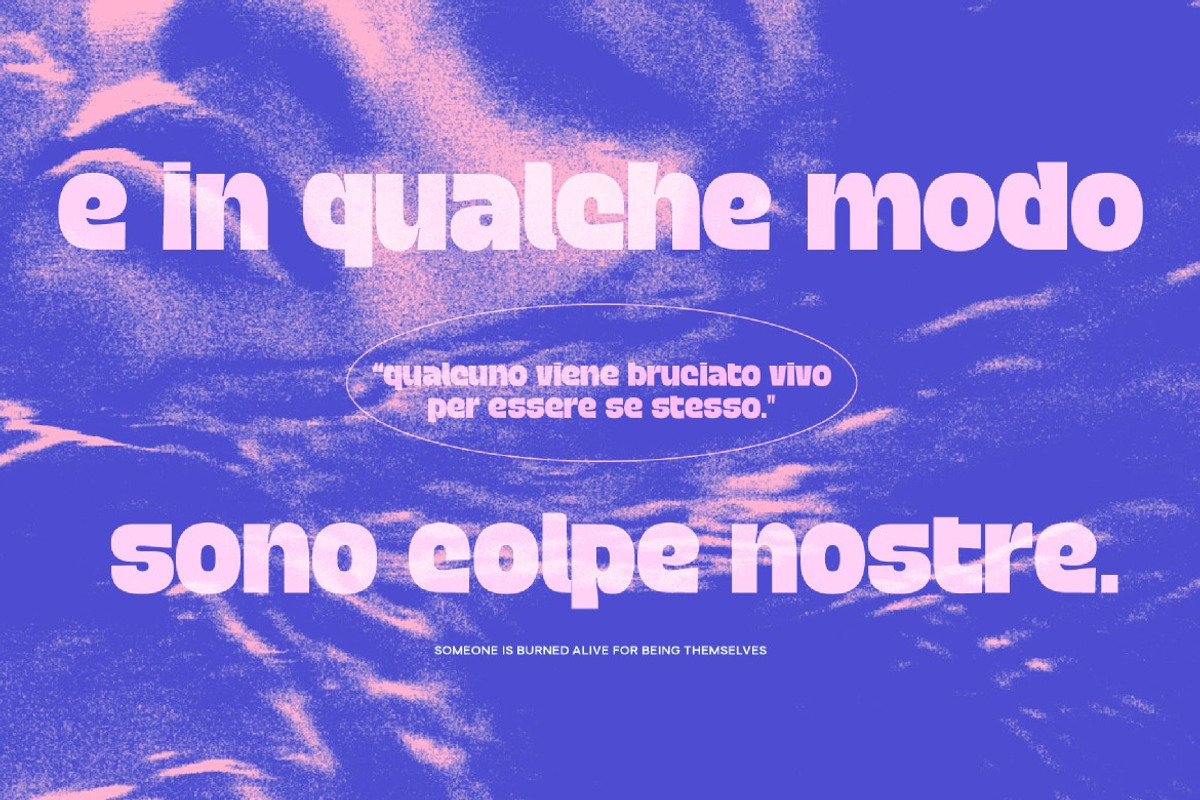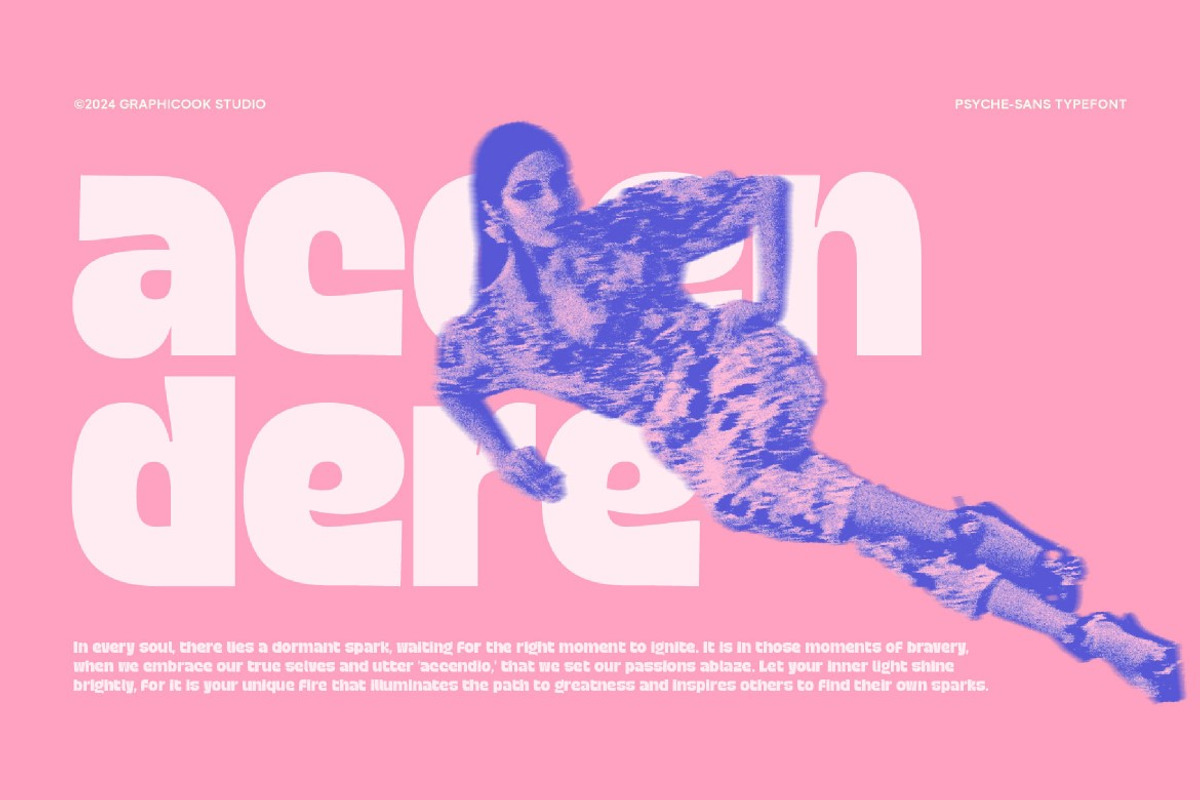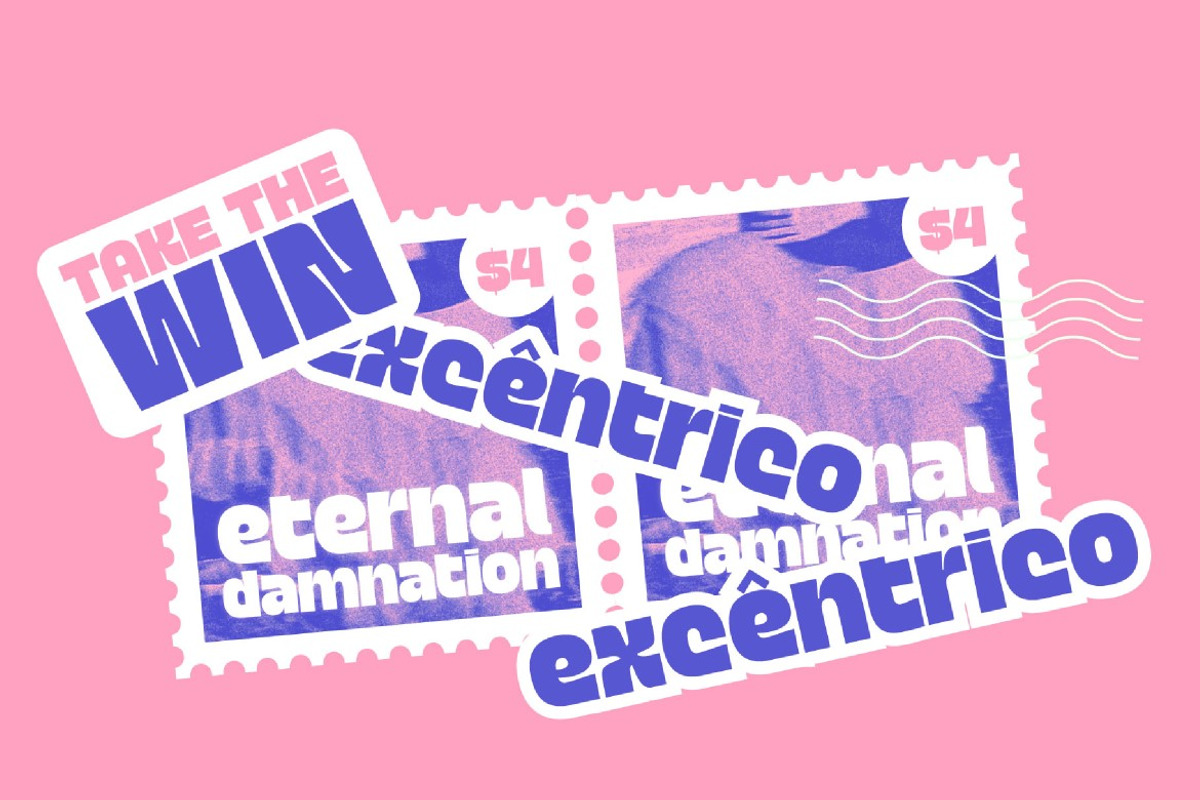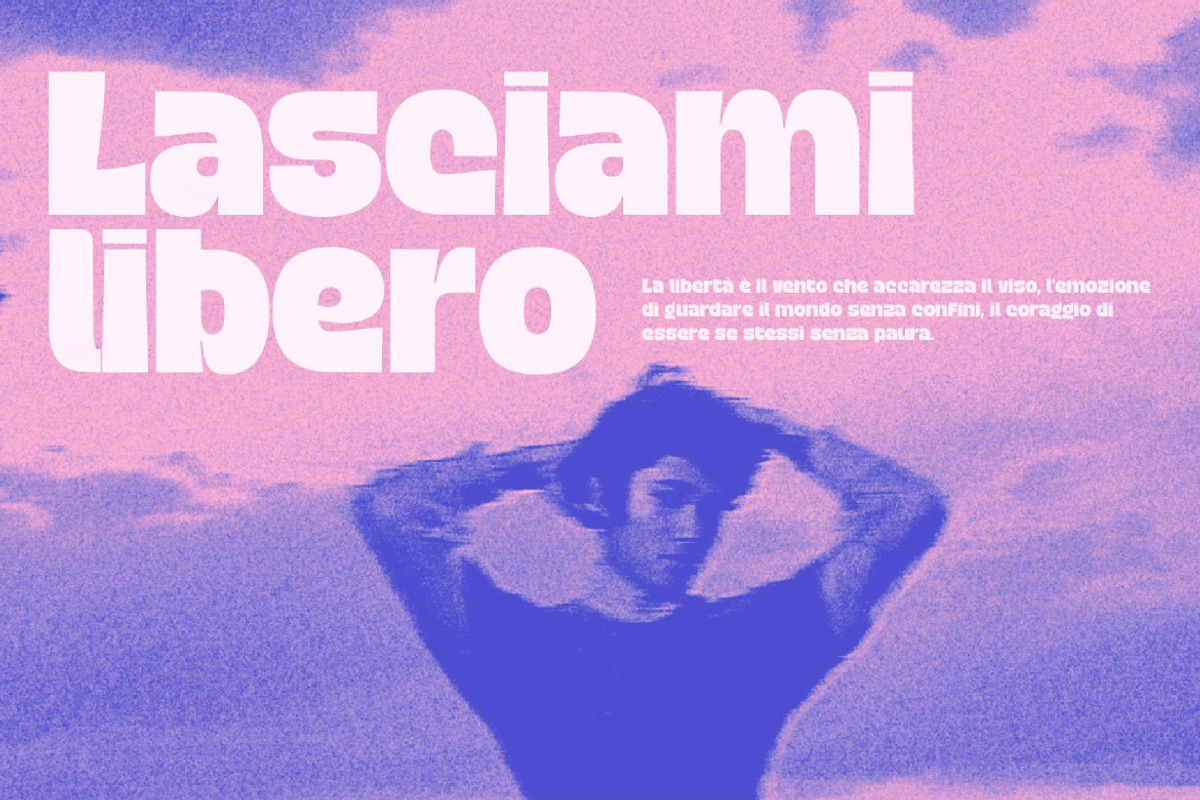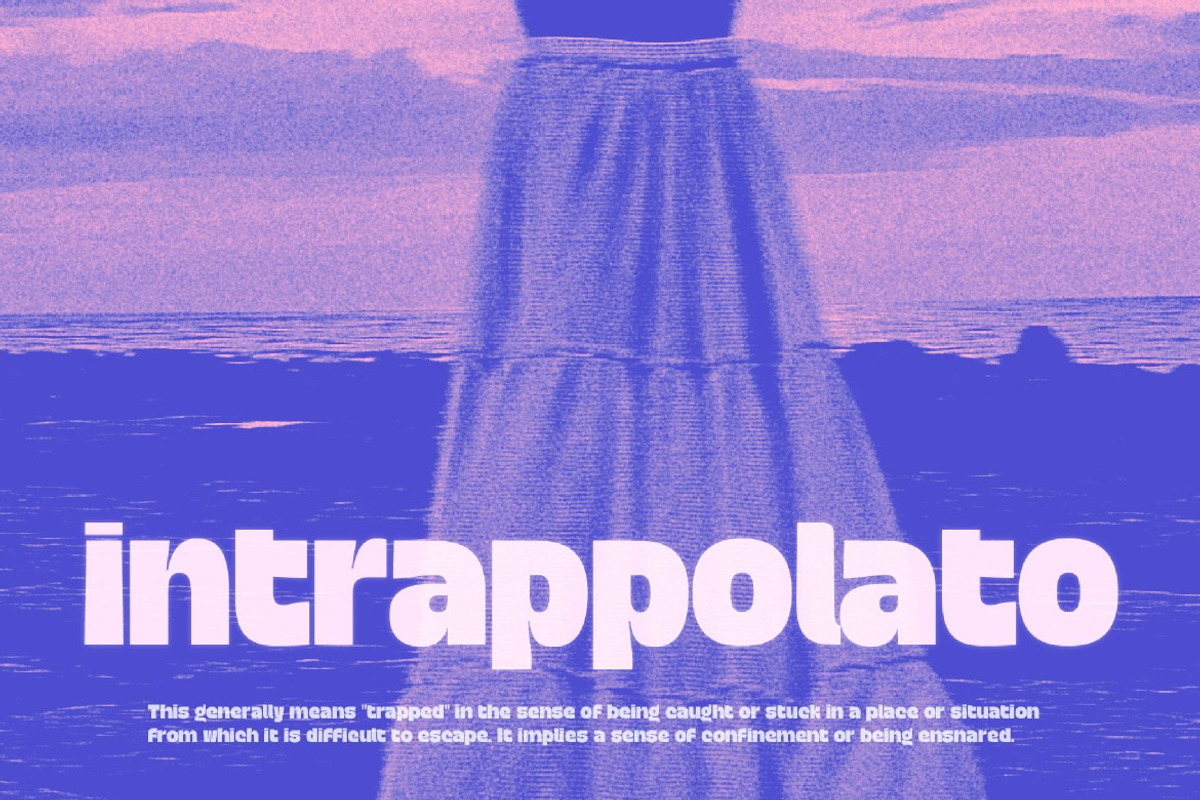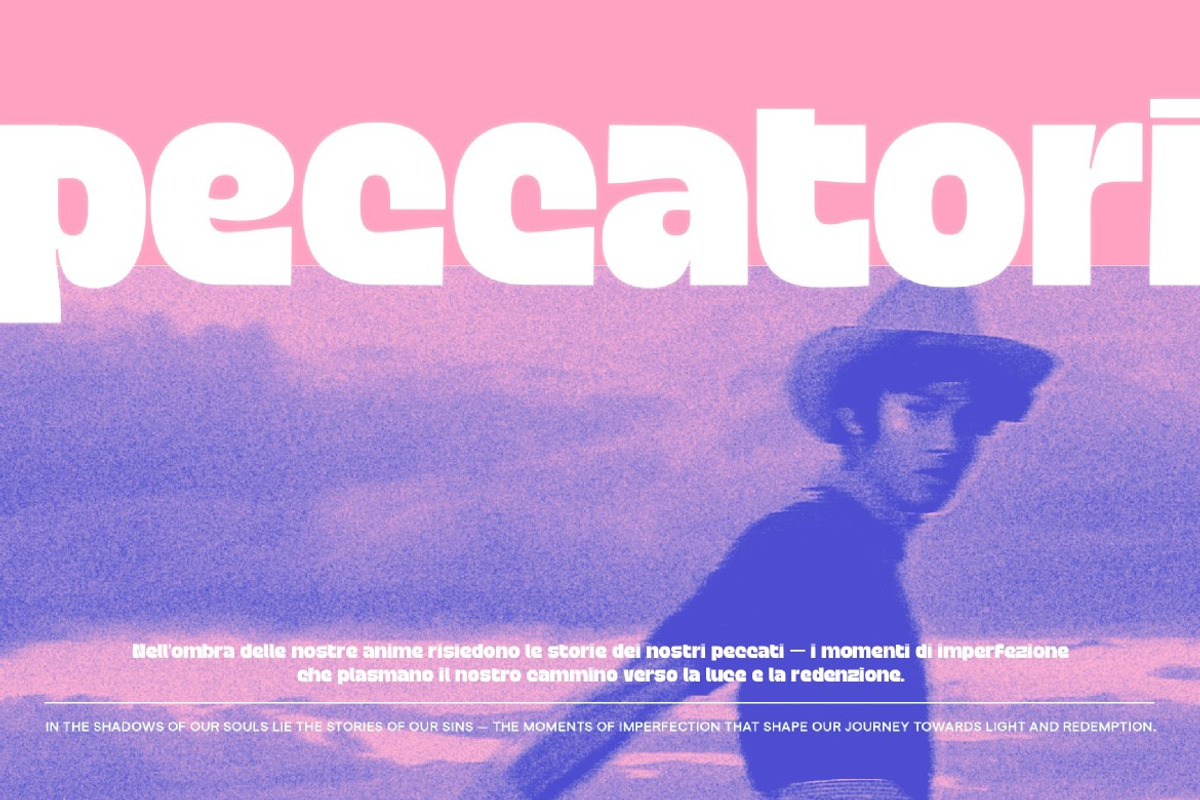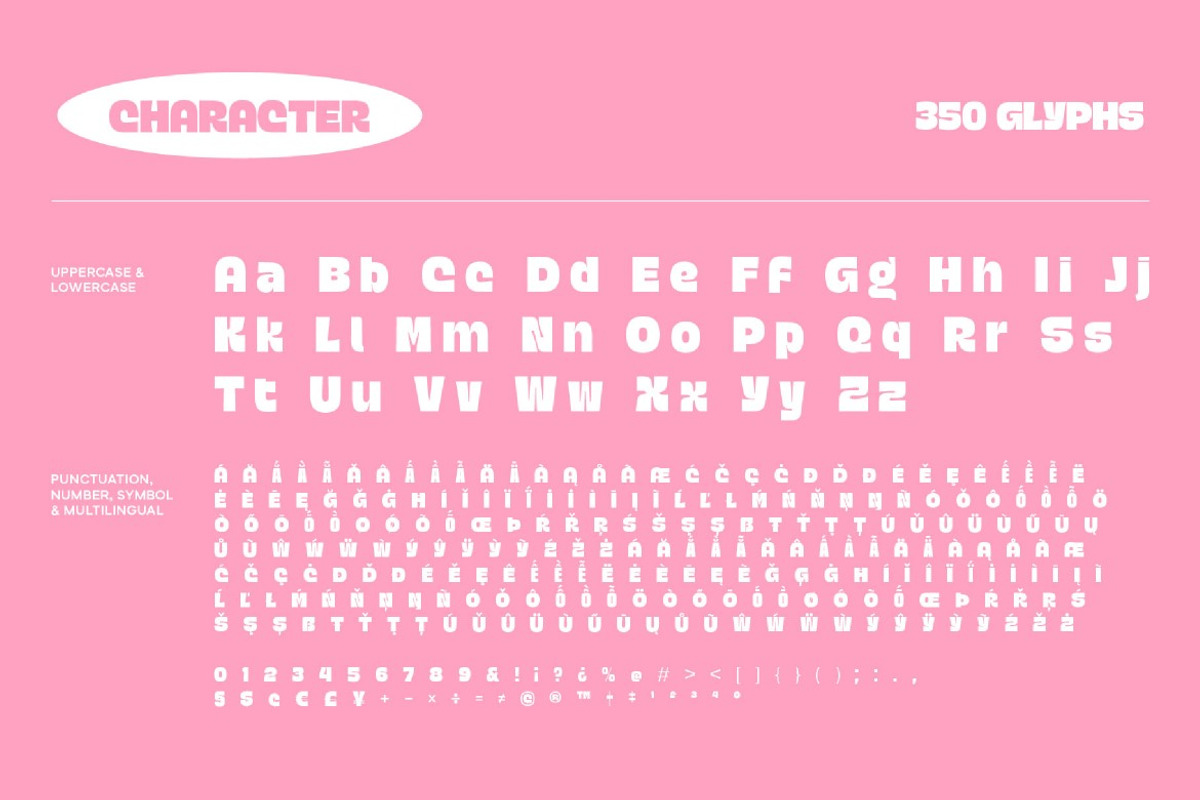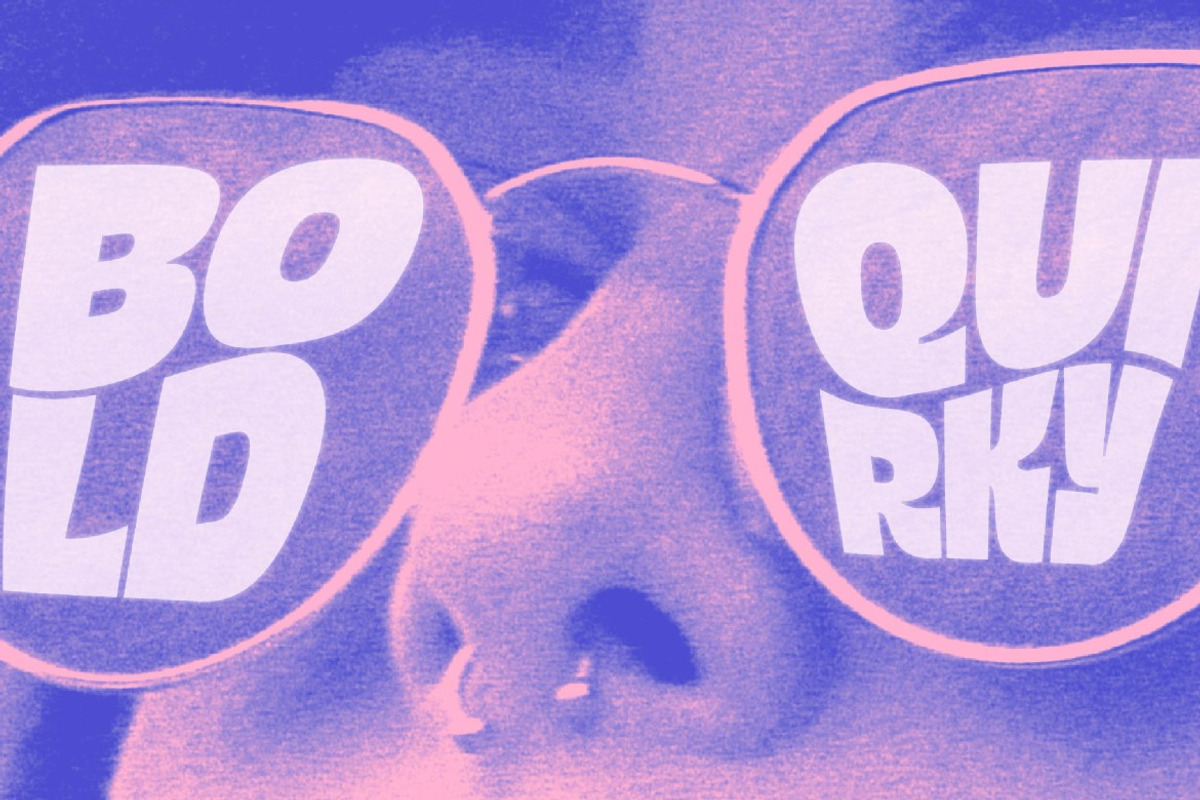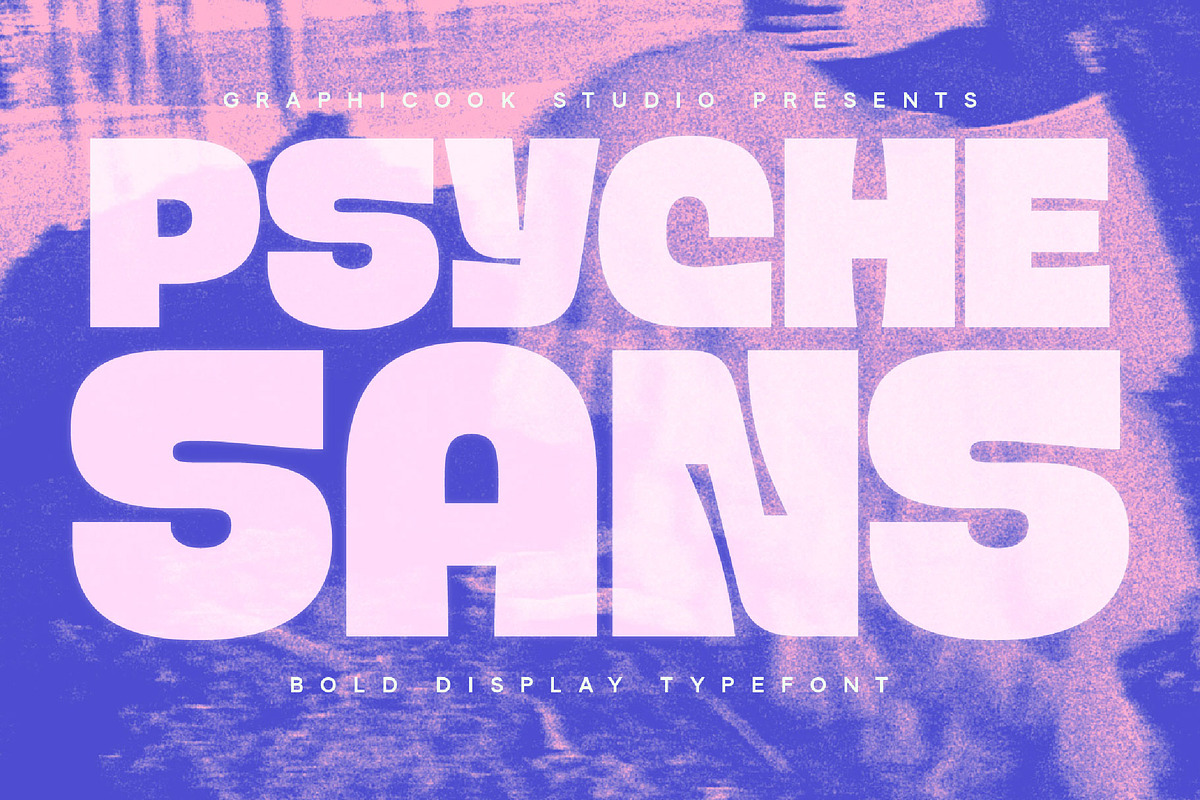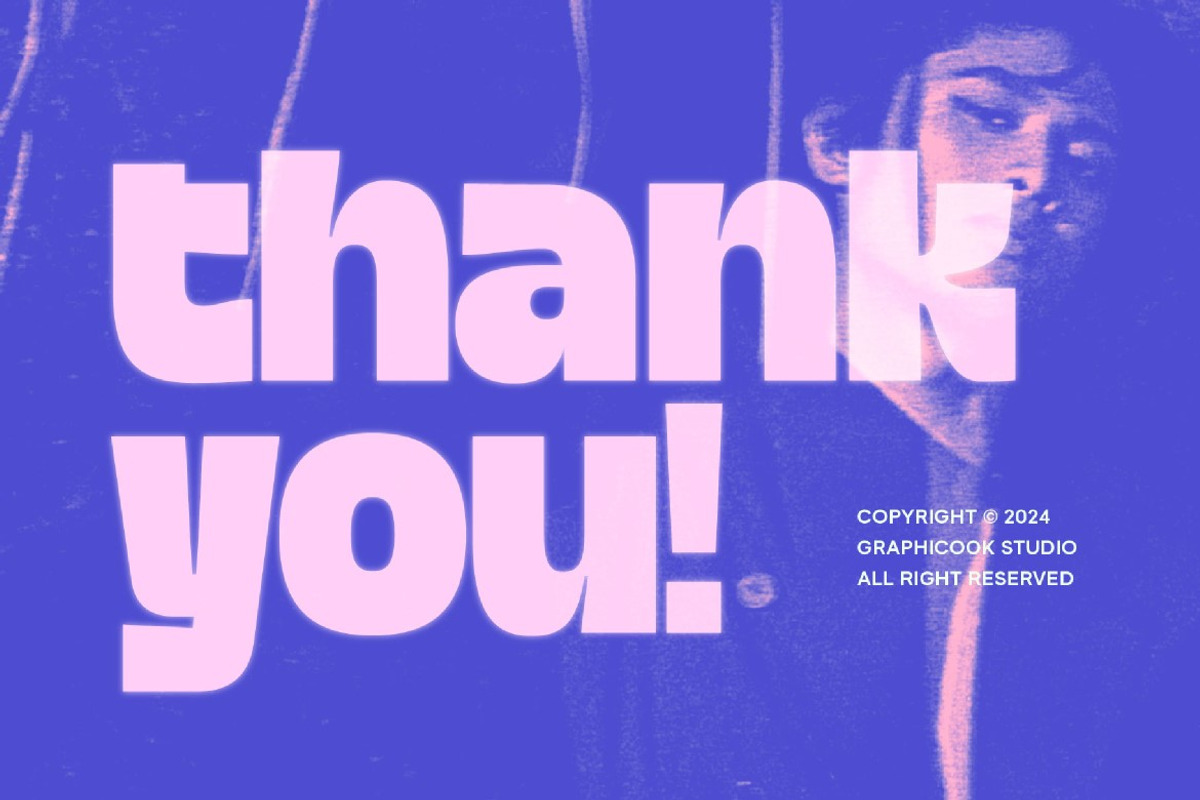
Psychesans
Psychesans inspired by the psychedelic style, this typeface introduces a sans-serif font with a heavy typeface. Suitable for headlines, posters, magazines, or packaging.
Psychesans is perfect for headlines, logotypes, magazines, packaging, quotes, movies, games, cover albums, book covers, and flyers, it's a perfect solution for creating eye-catching designs that stand out in any context.